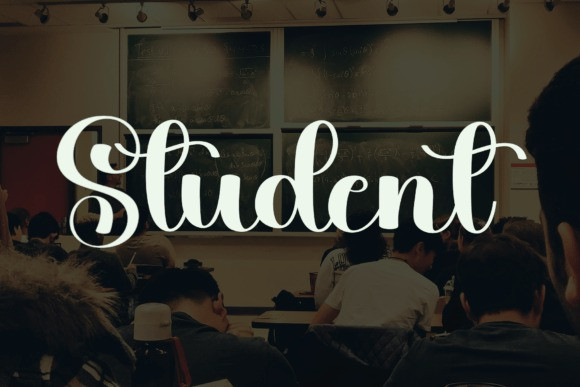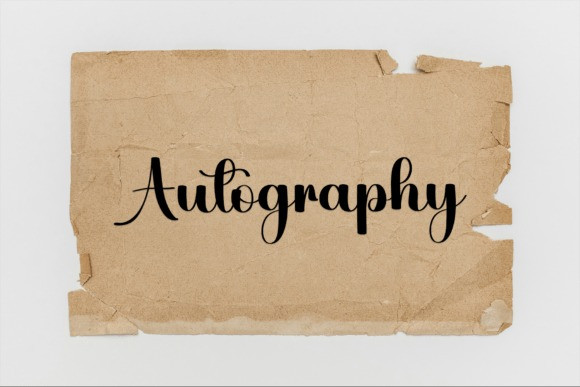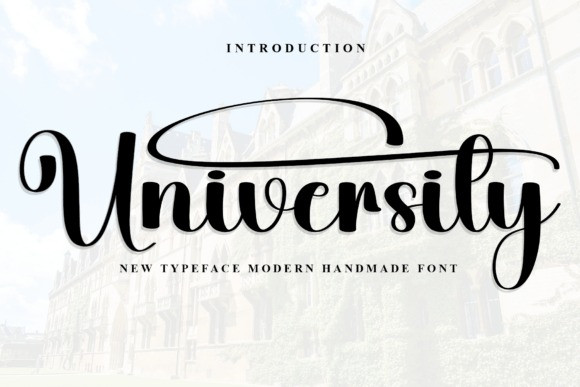
University Font
University Font is a beautiful and eye-catching font designed with a soft, unique touch. Its distinctive strokes give it a special character, making it meaningful and versatile for future use. With various characters, it’s perfect for design projects, crafts, and other creative works.